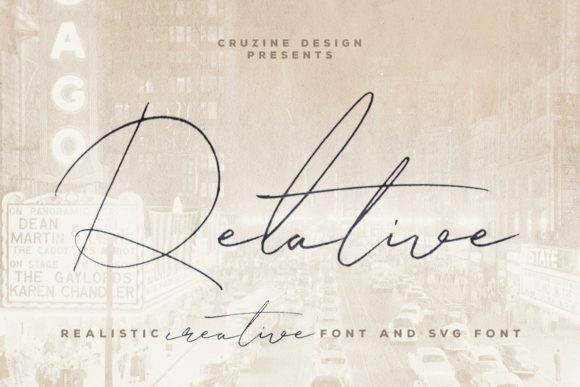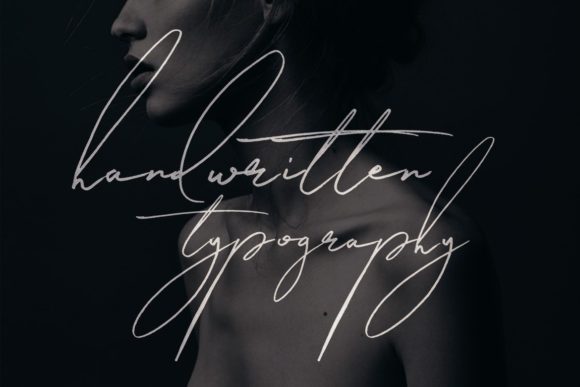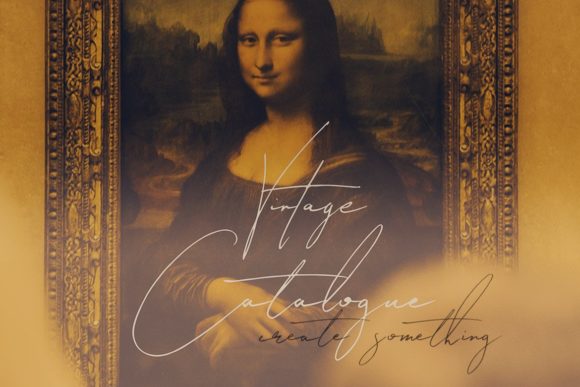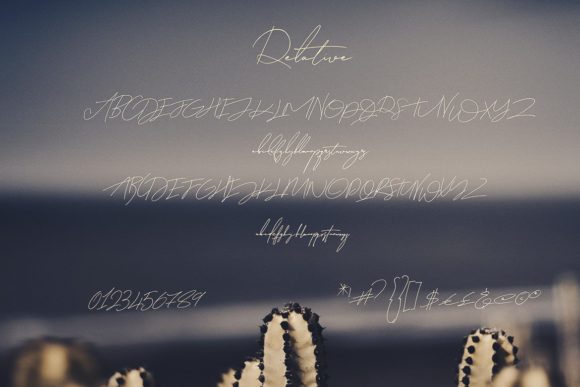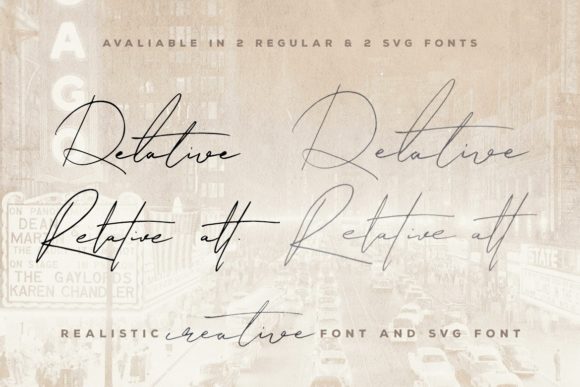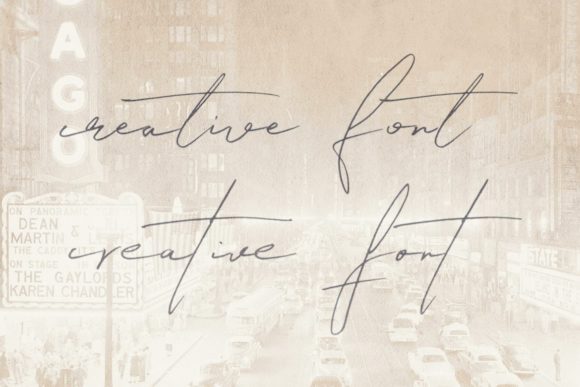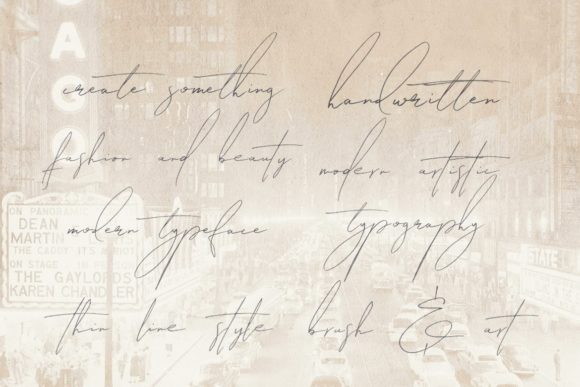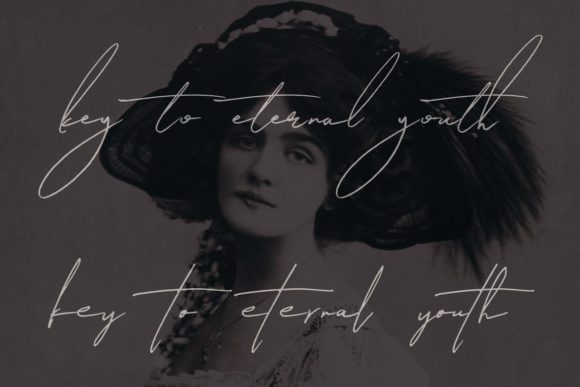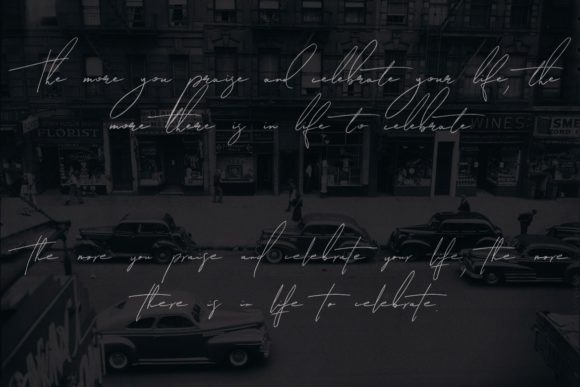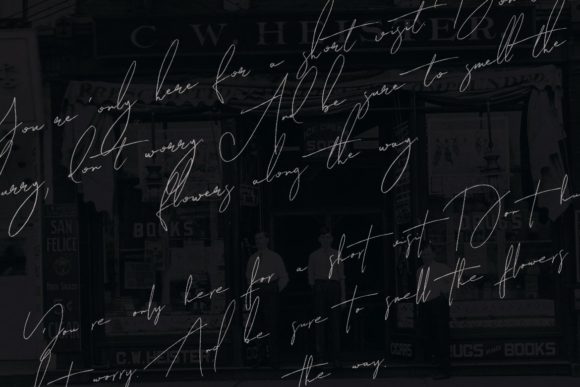
Relative Font
About Relative Font
Relative is a stunning handwritten font with a light feel. It will effortlessly add a contemporary twist to any design project!